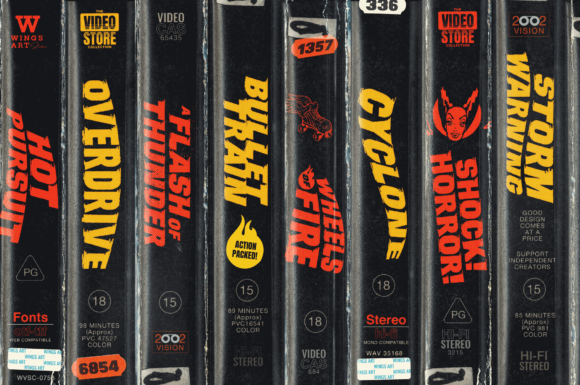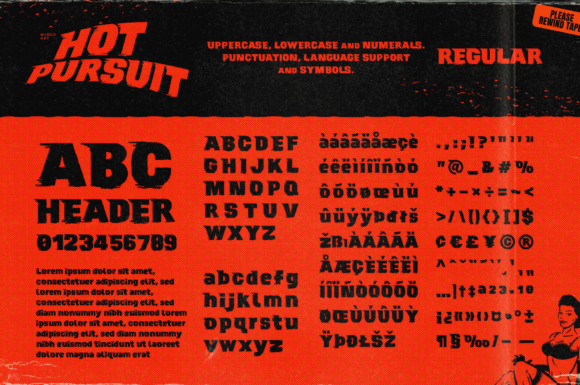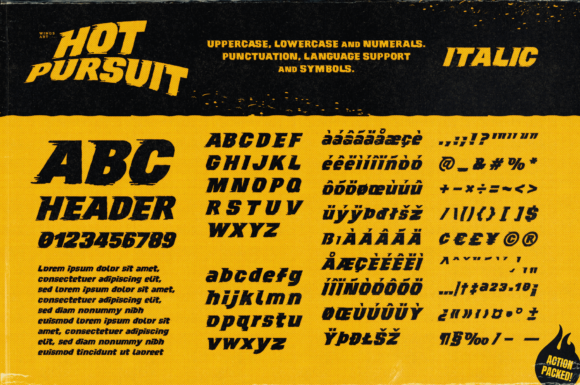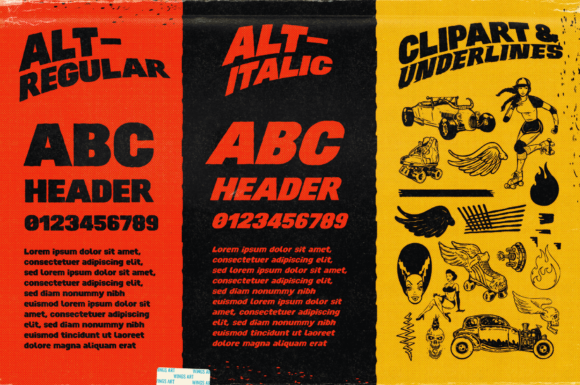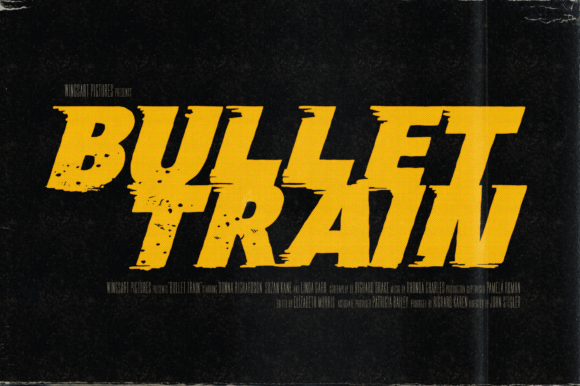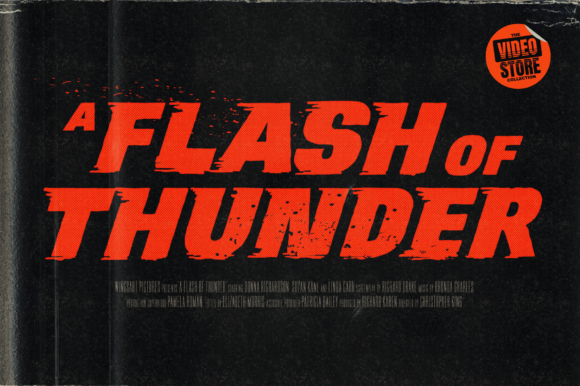
Introduction to Hot Pursuit Font
Hot pursuit is a grungy hand-drawn display font with attitude inspired by comic books, Roller Derby, and bad Grindhouse movies.
Key Features of Hot Pursuit Font